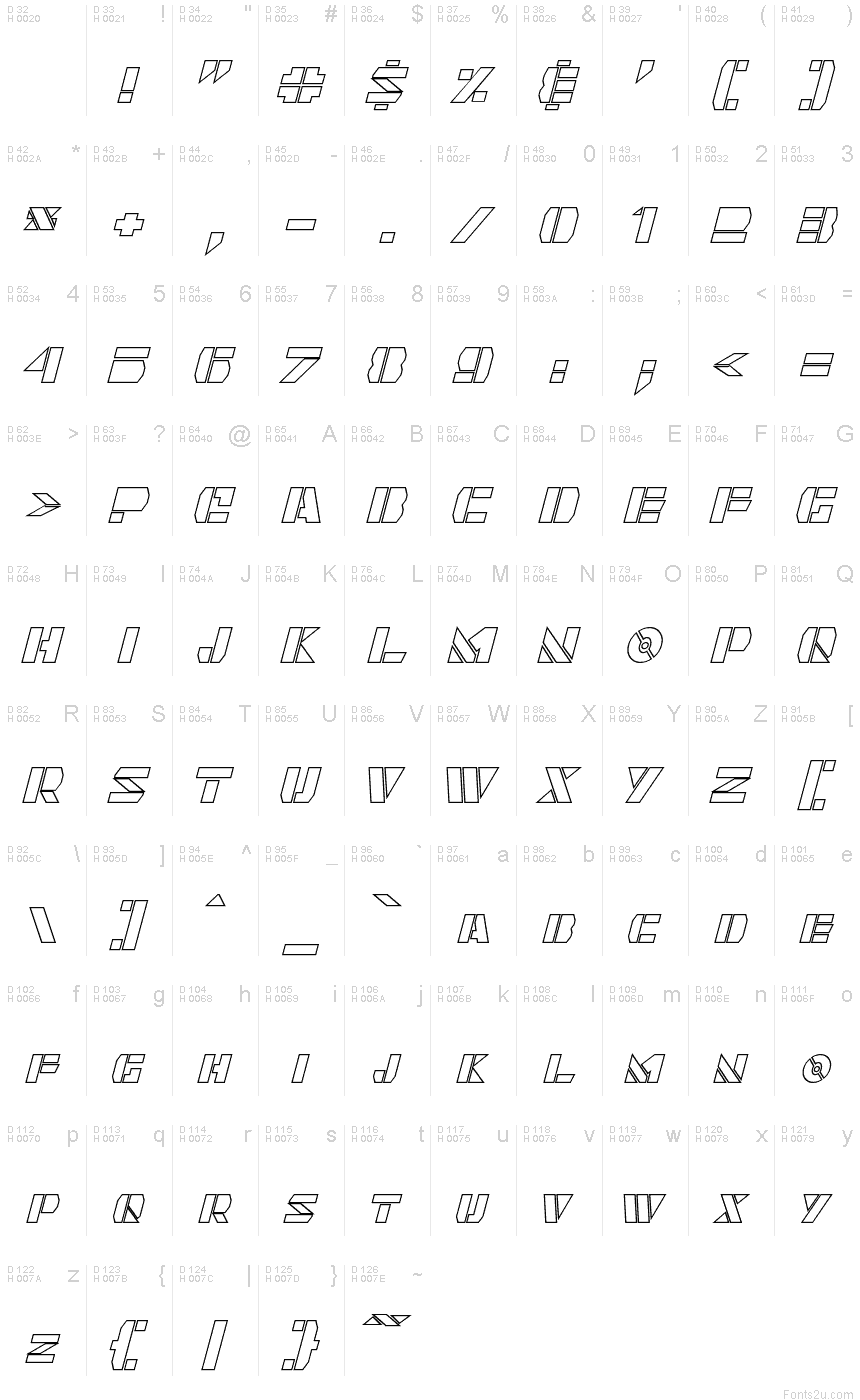
Quintanar Hollow Italic
Quintanar is sharp, angular typeface deigned to resemble a science-fiction stencil set. The look is heavily influenced by the covers of R Talsorians Mekton II game line from the 1980s. Includes full alphabet, extended punctuation, and Euro. Includes regular, italic, hollow, and hollow-italic weights.